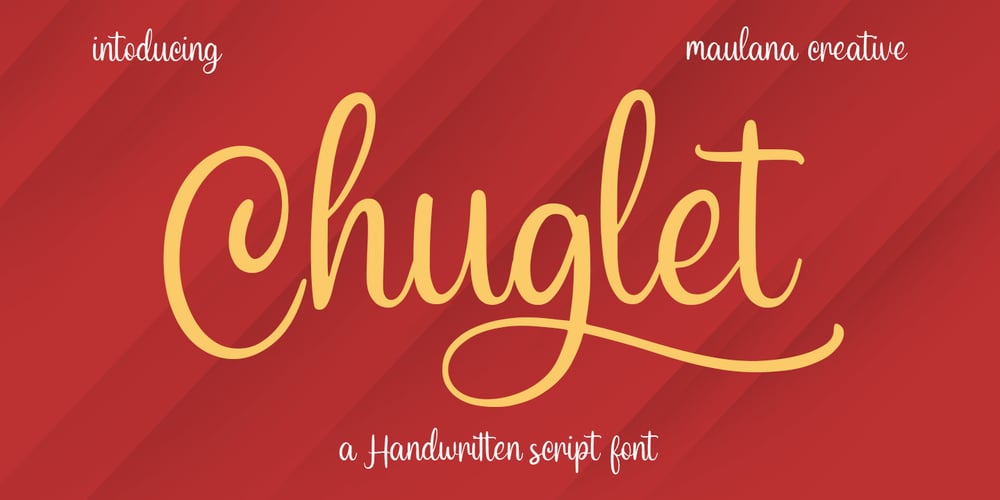
Chuglet
Chuglet font
Chuglet Font Family was designed by Gilang Maulana and published by Maulana Creative. Chuglet contains 1 styles and family package options. Chuglet is a cursive script font. With bold contrast stroke, fun character with a bit of ligatures and alternates. To give you an extra creative work. Chuglet font support multilingual more than 100+ language. This font is good for logo design, Social media, Movie Titles, Books Titles, a short text even a long text letter and good for your secondary text font with sans or serif. Make a stunning work with Chuglet font. Cheers, Maulana Creative